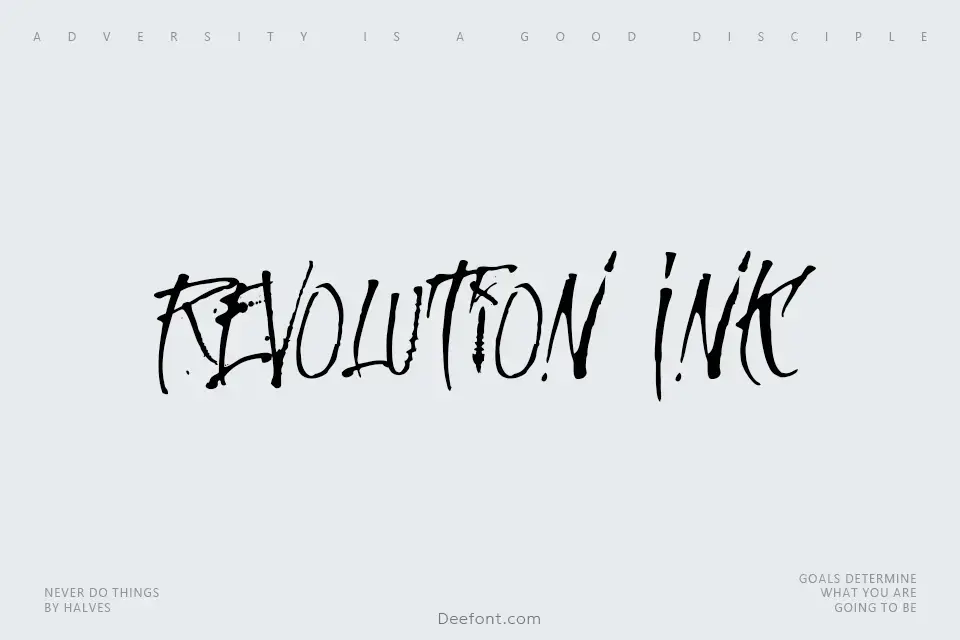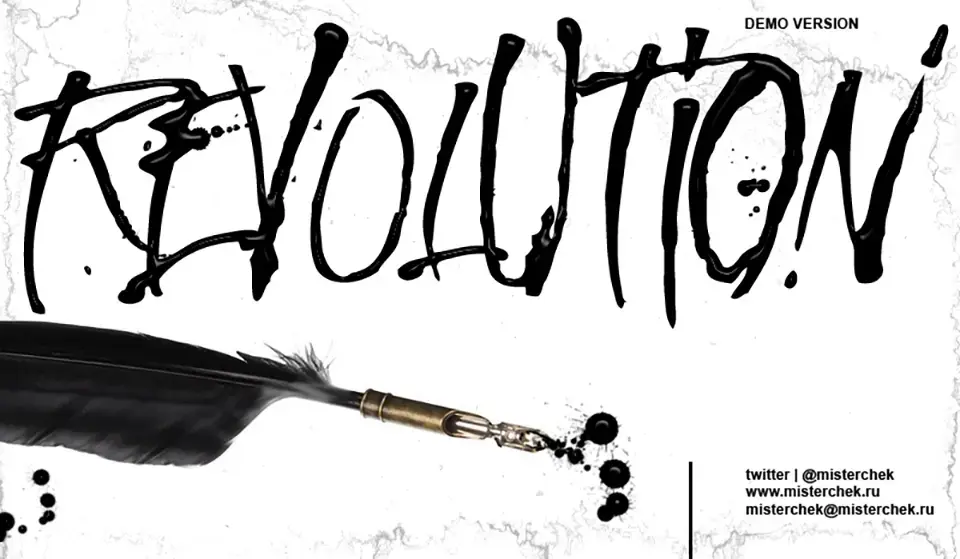
MCF Revolution Ink Font
MCF Revolution Ink is a striking display font featuring grungy, ink-splattered letterforms with bold handwritten characteristics. This dynamic all-caps typeface excels in creating impactful visual statements for posters, horror movie titles, graffiti designs, and creative projects demanding edge and attitude. With 102 unique glyphs and irregular brush-like strokes, it brings raw artistic energy to headlines and promotional materials.***For questions or proposals, feel free to mail misterchek@misterchek.ru